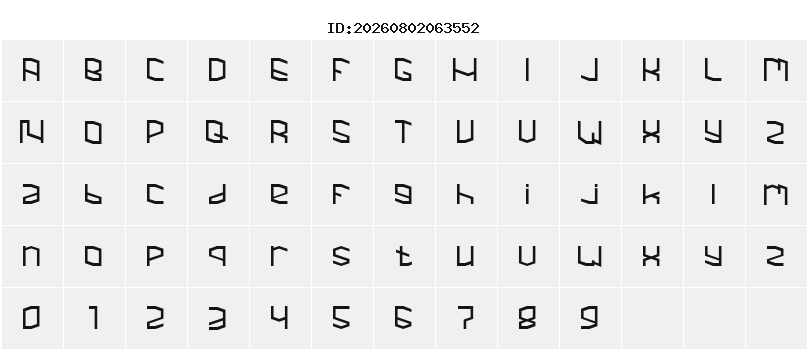
• Font Name: MIGHTY
• Full Font Name: MIGHTY
• PostScript Name: MIGHTY
• Designer: Mujahid Alawy
• Manufacturer: Mujahid Alawy
About MIGHTY.ttf
MIGHTY.ttf is a modern, elegant sans-serif font designed for ultimate readability and visual harmony. Perfect for branding, headlines, web design, and print materials.